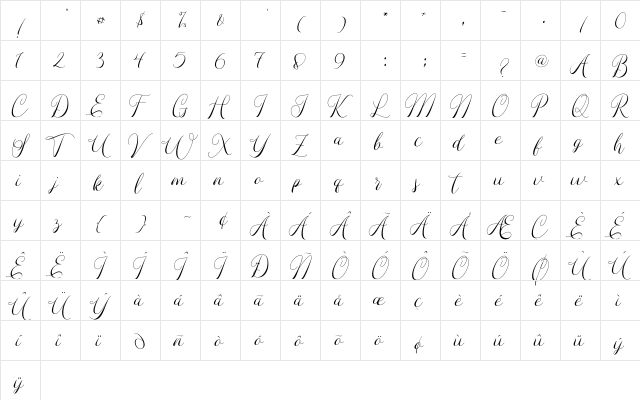
Umbrella Script Regular
Design Context for Umbrella Script Typeface
Umbrella Script flows with the natural rhythm of handwritten lettering, making it ideal for designs that call for warmth and personal expression.
Font Pairing: Combine Umbrella Script with a simple geometric sans for maximum contrast — the tension between flowing curves and clean structure is a classic typographic pairing.
Pro Tip: Use Umbrella Script for short runs of text — names, titles, or taglines. Extended body copy in script faces tires the eye quickly.